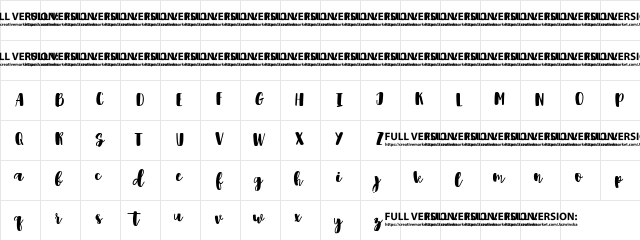
Shrewdy Regular
Design Context for Shrewdy Typeface
Shrewdy is a composed and adaptable typeface that performs quietly and consistently across a wide range of design contexts.
Pro Tip: Use Shrewdy in both headline and body roles to test its range before committing to a single application.